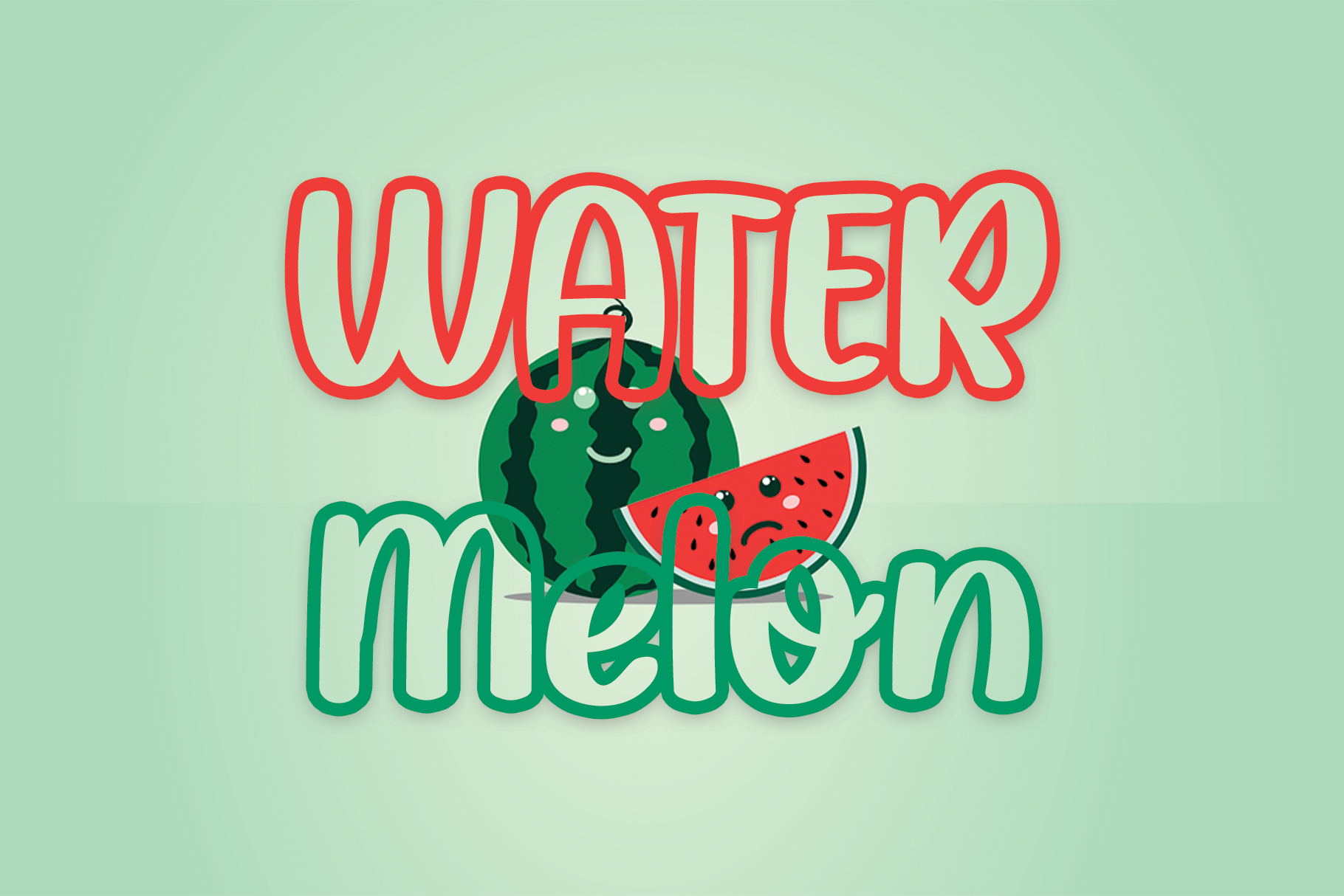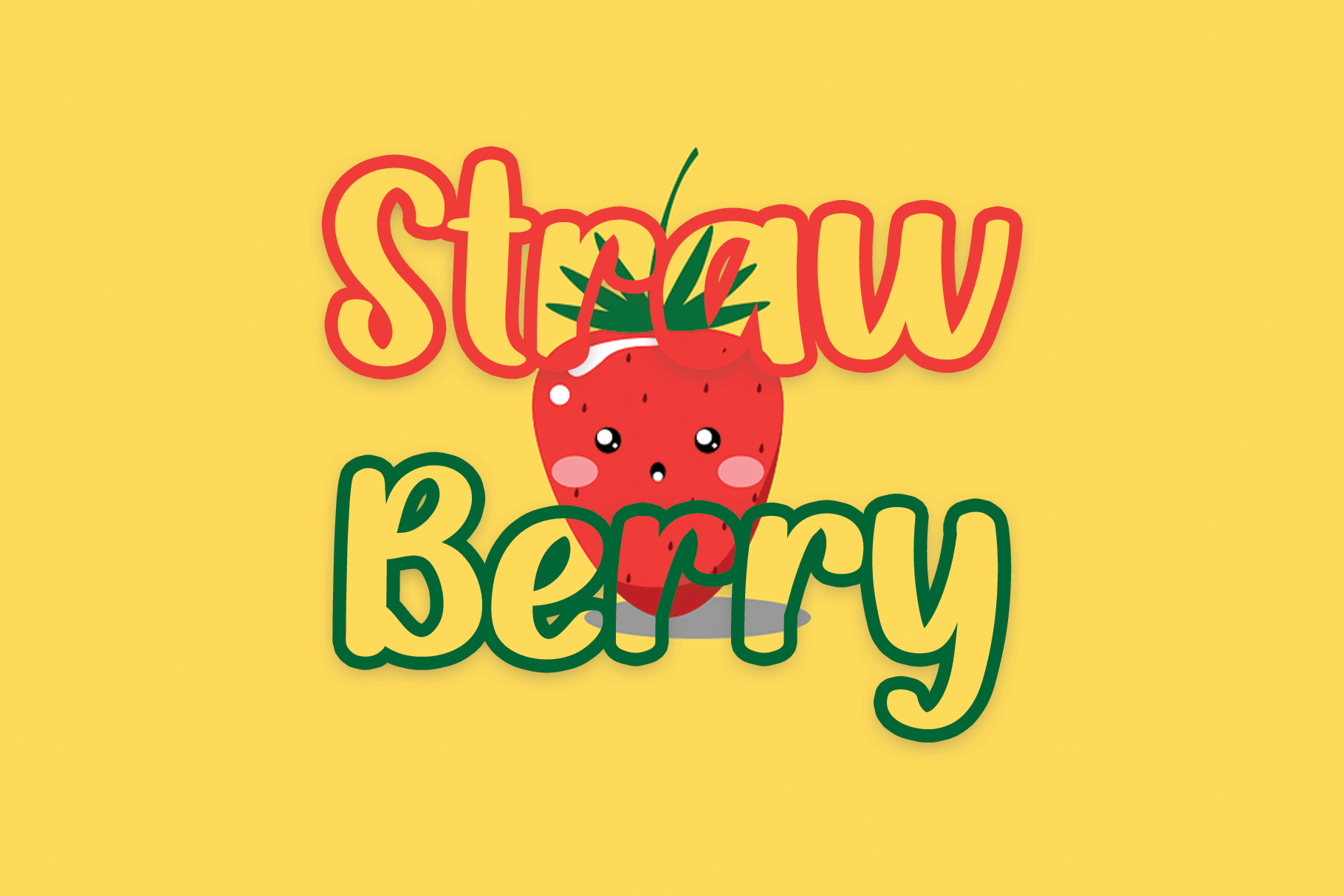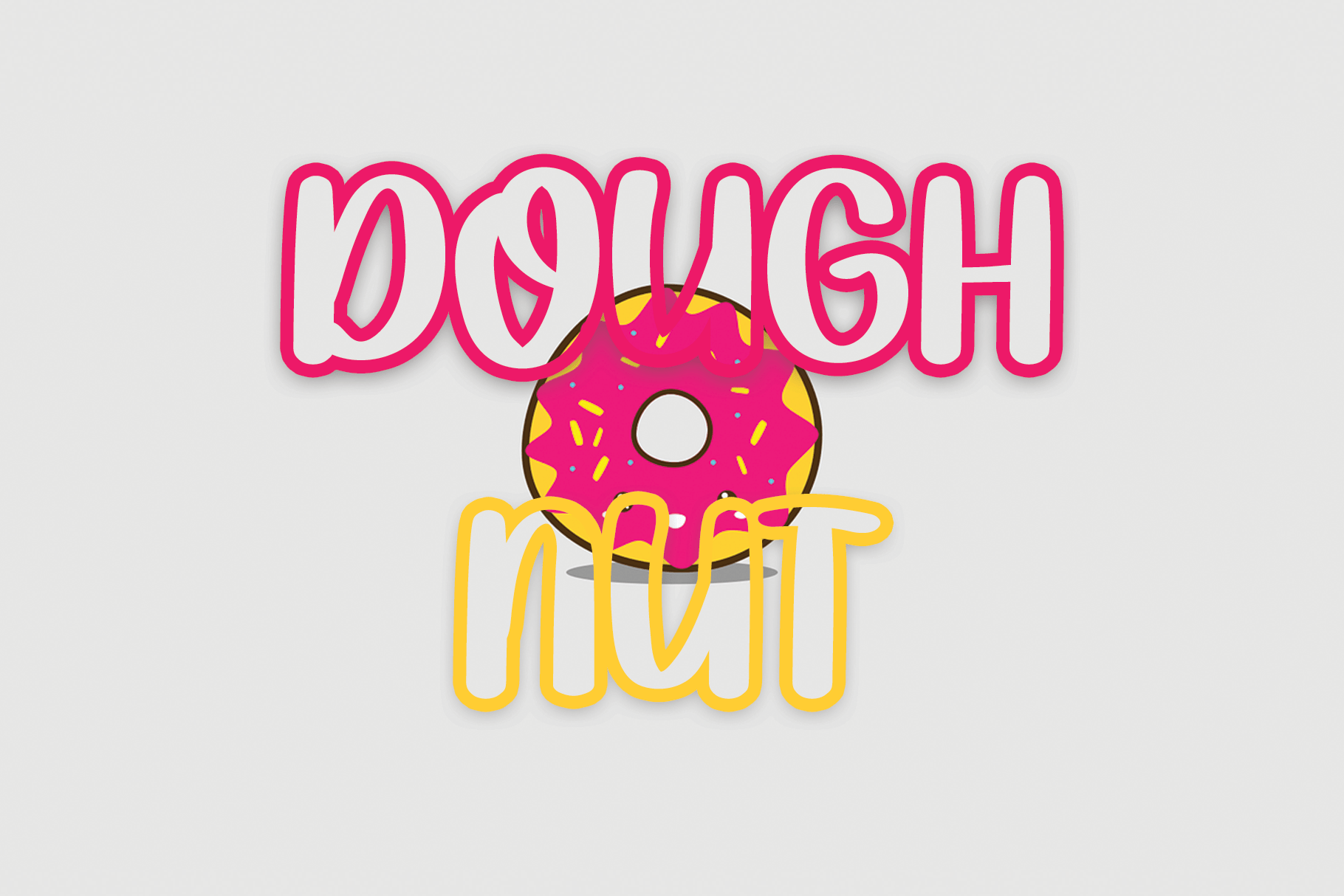
Meet Cute Font
Meet Cute Display Font
This is a friendly and cool paint brushed handwritten font. Whatever the topic, this font will be a wonderful asset to your fonts’ library, as it has the potential to enhance any creation.